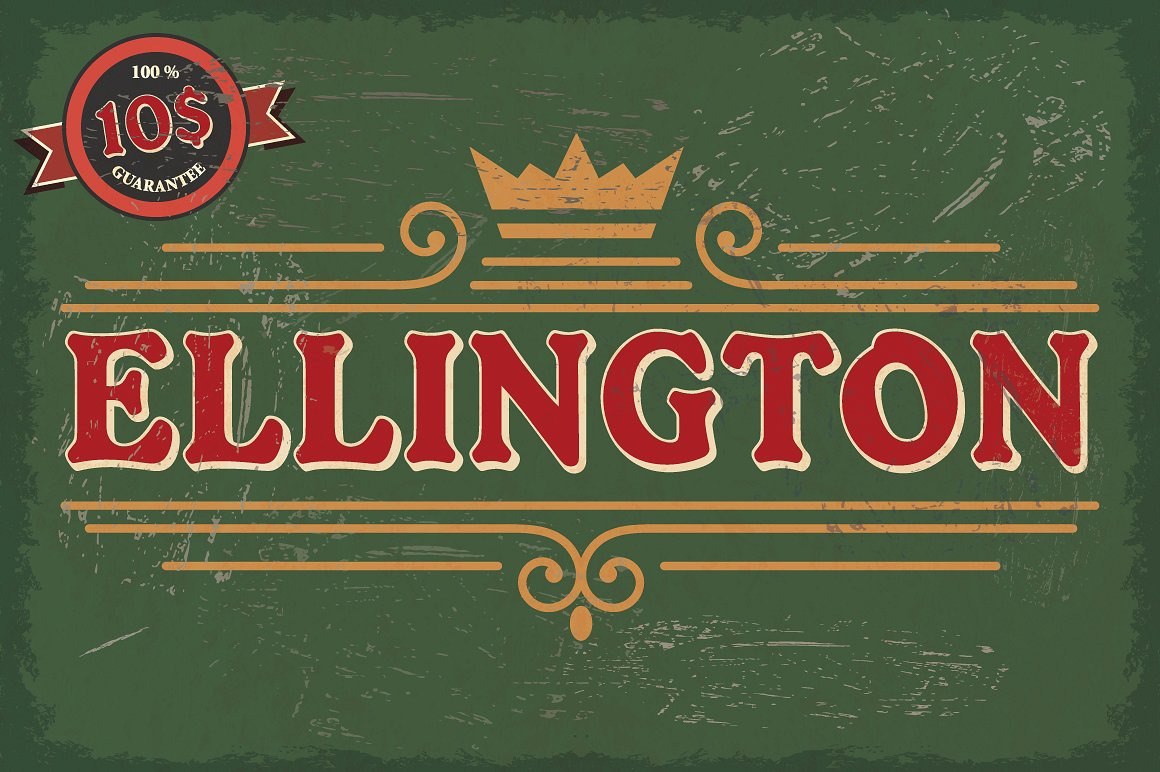
Ellington Font
ELLINGTON
Ellington is a versatile retro display font designed to give a vintage feel! The various possibilities of the Ellington Font allows you to create a lot of great works such as posters, magazines, printings, t-shirts etc.
Numbers & Simbols